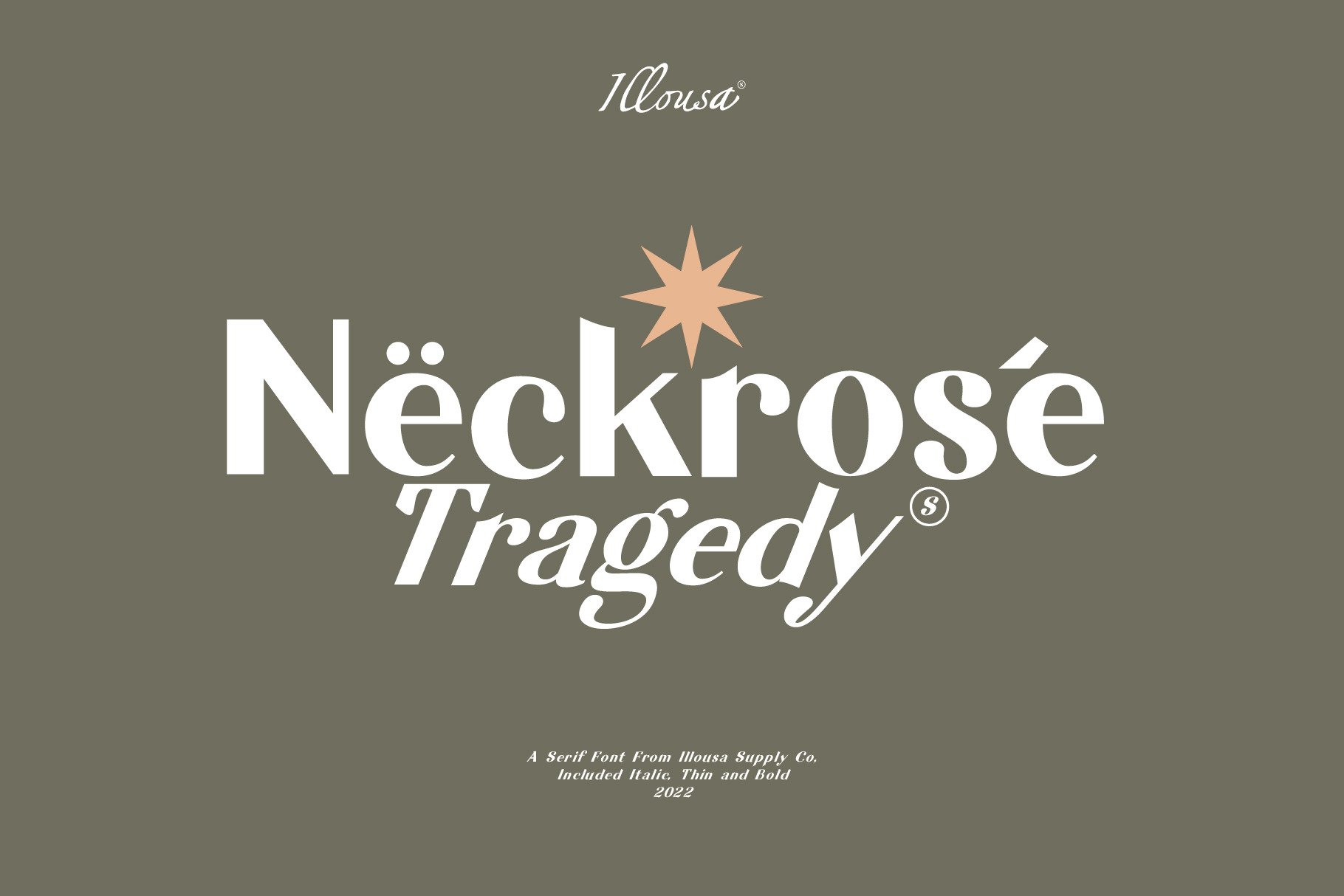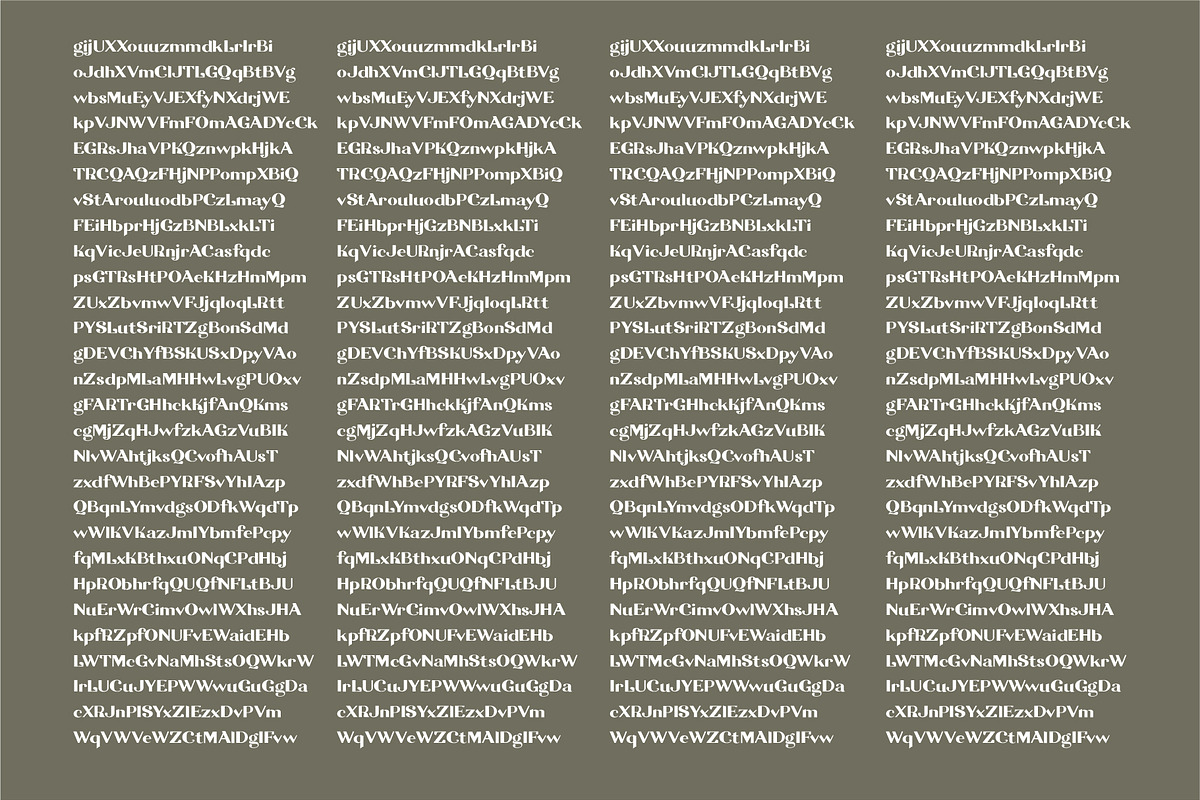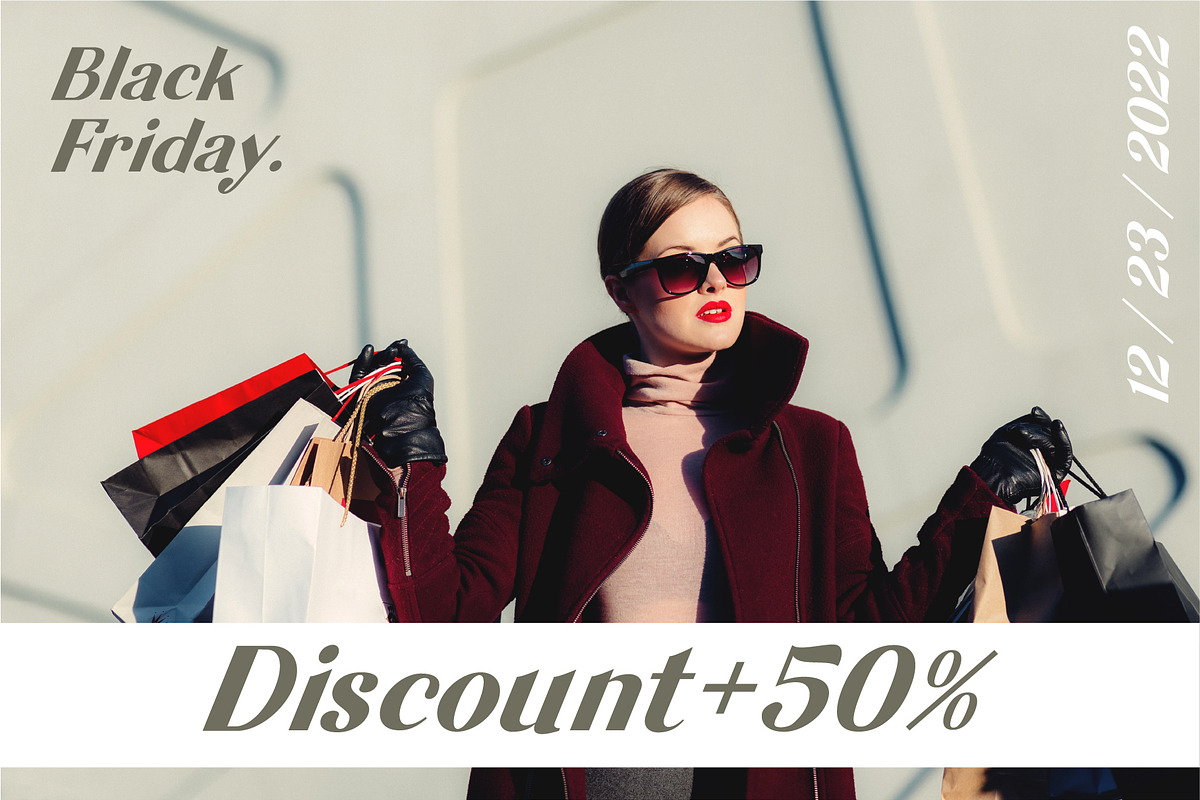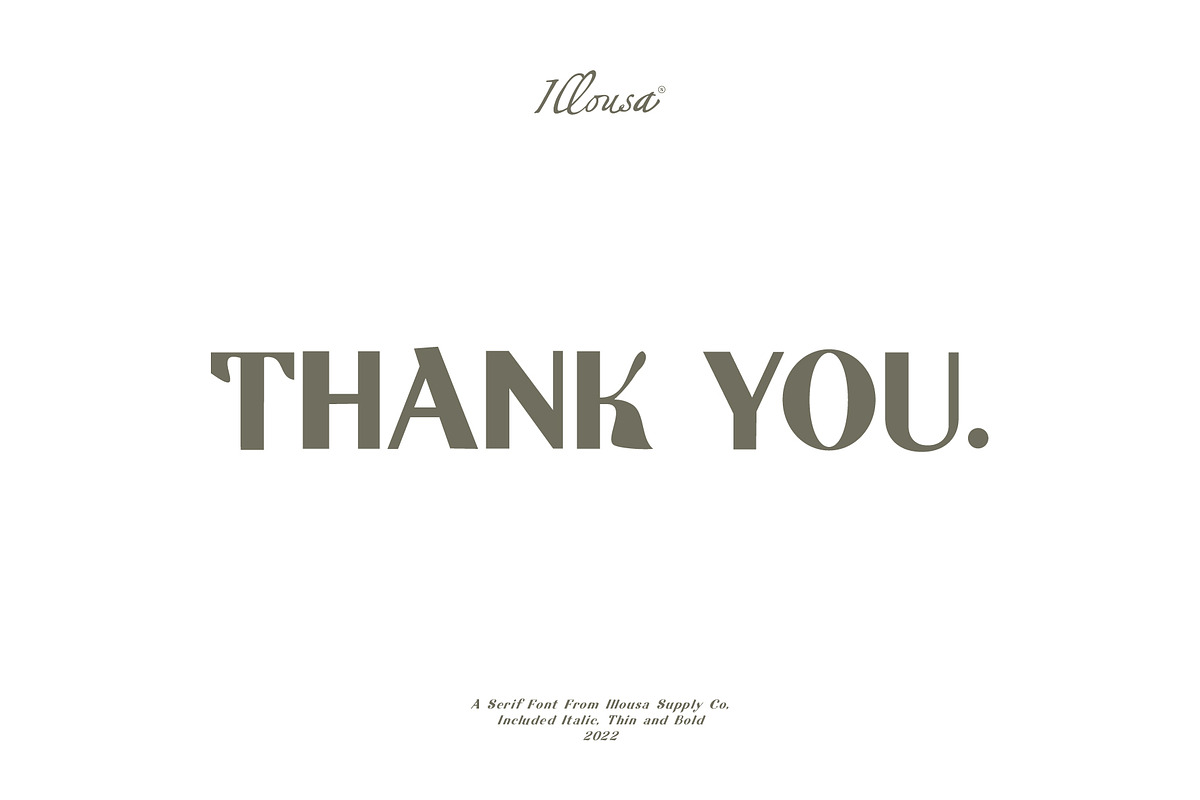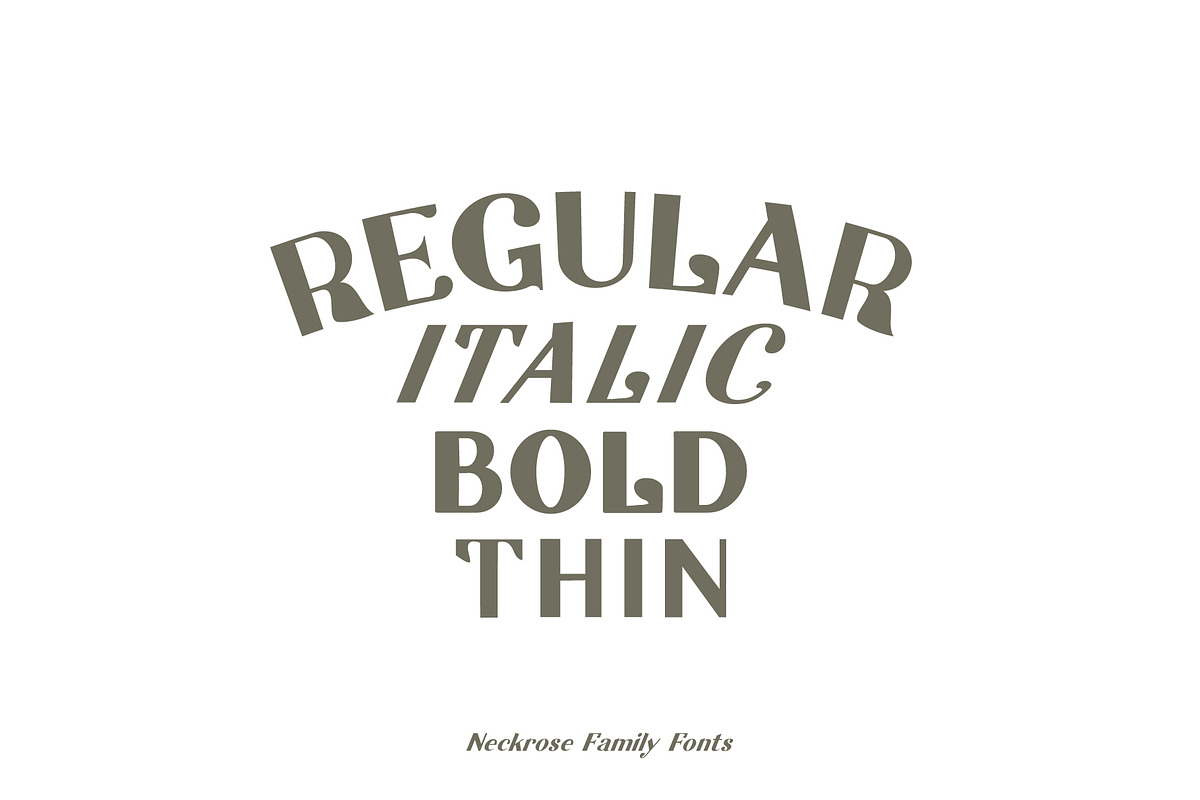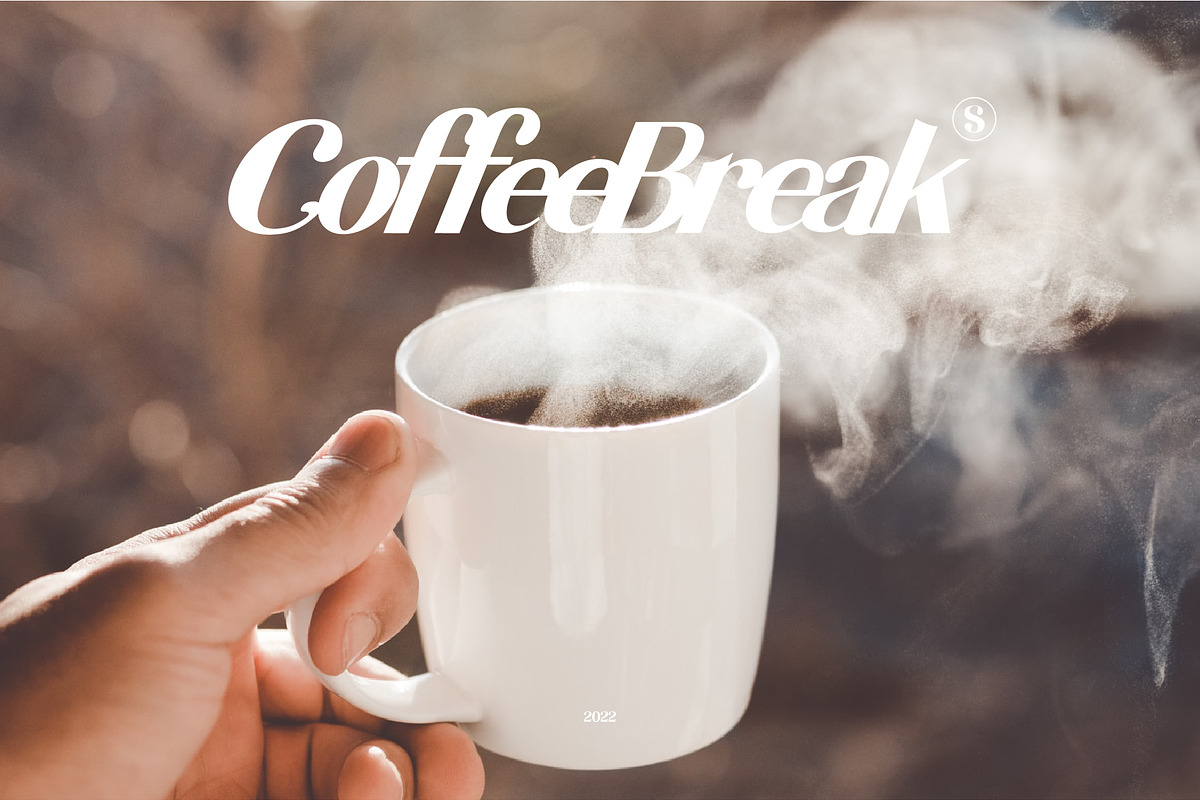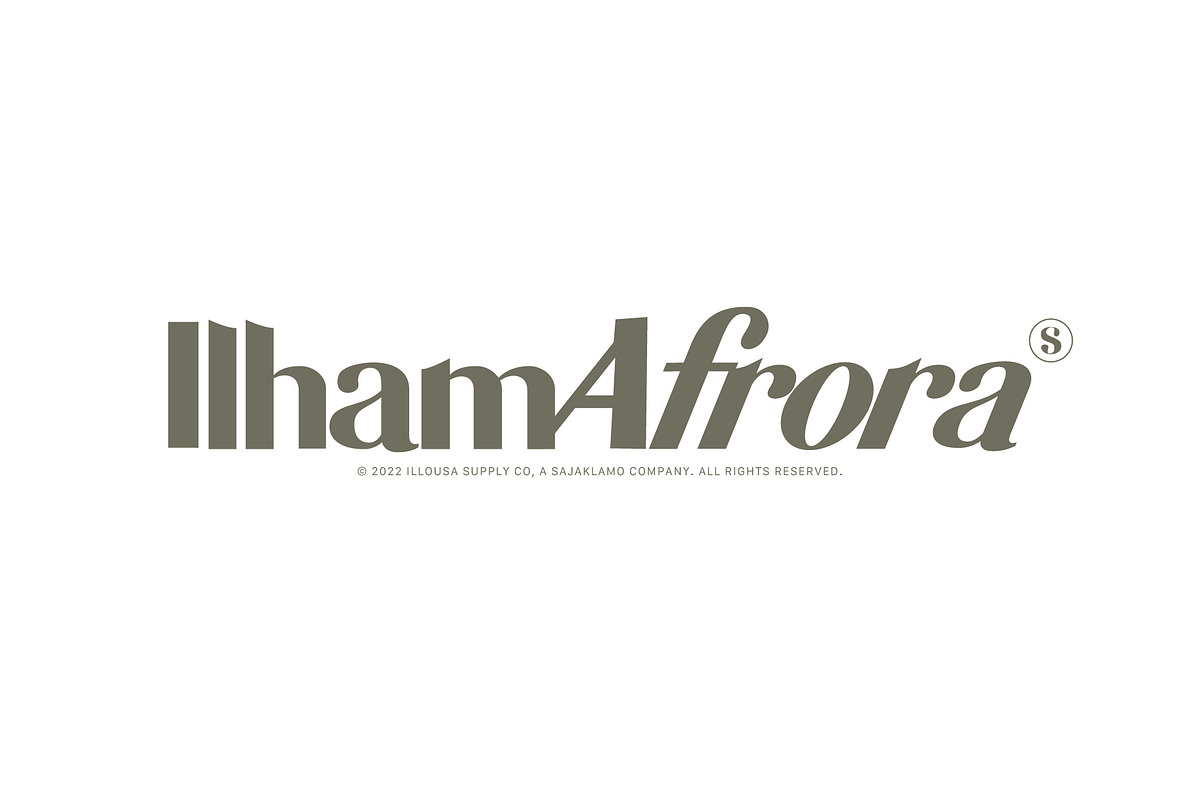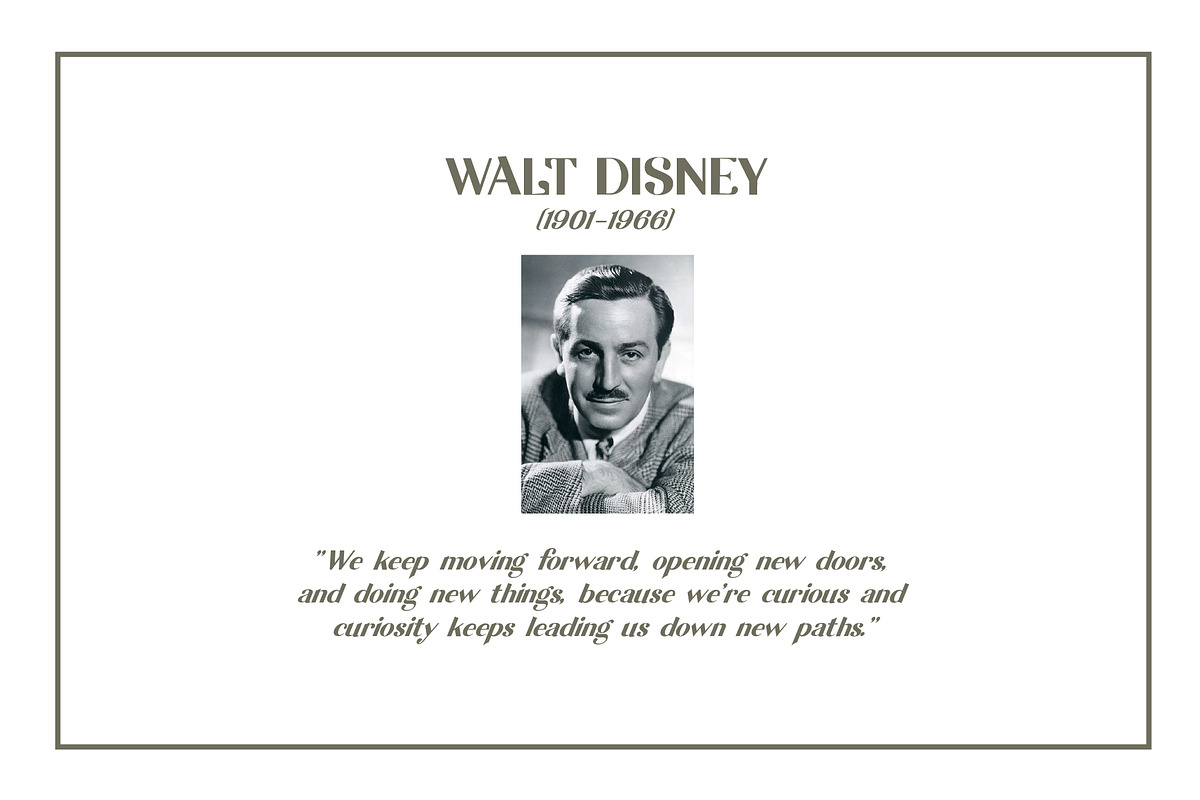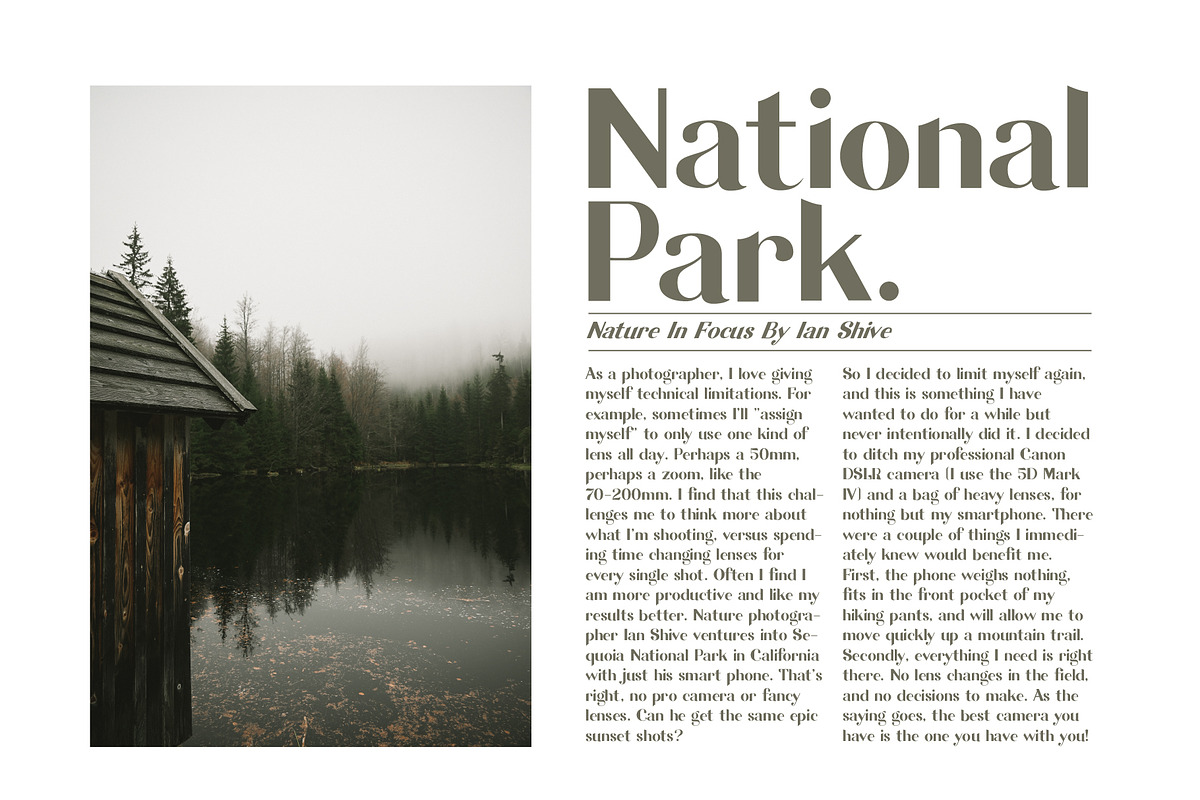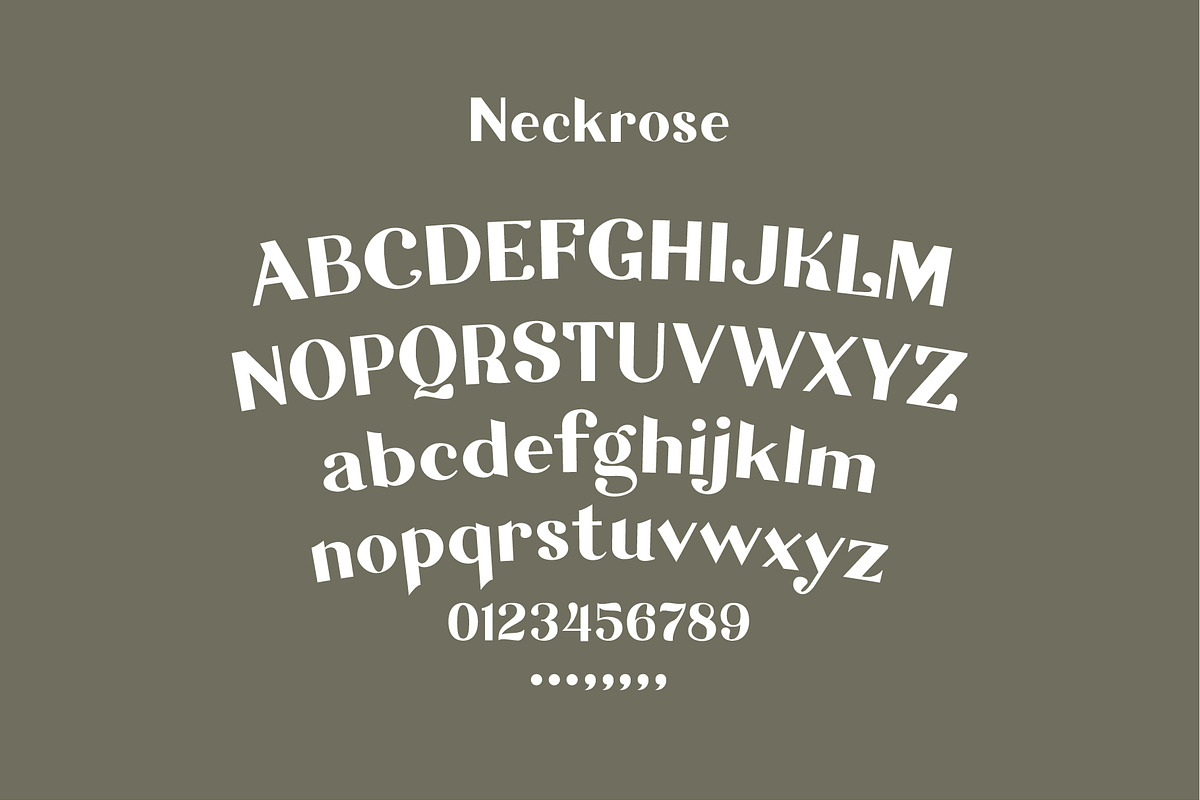
Neckrose - Serif Family Typeface
Introduction | NECKROSE / Regular / Italic / Bold / Thin
Neckrose is a Serif font with a touch of luxury but still classic. very suitable for logo type or typography logos, choice of article fonts, posters and books. This is a new experience for you, because this store carries a modern vintage theme. it is our differentiator.